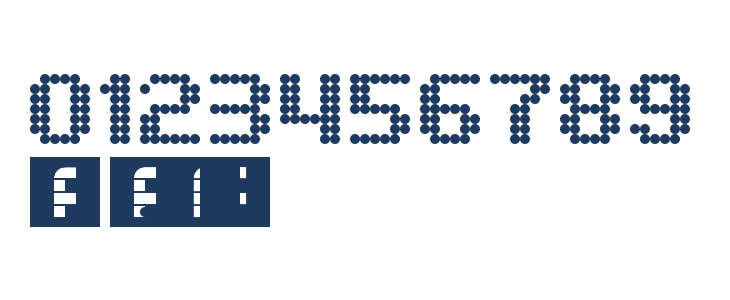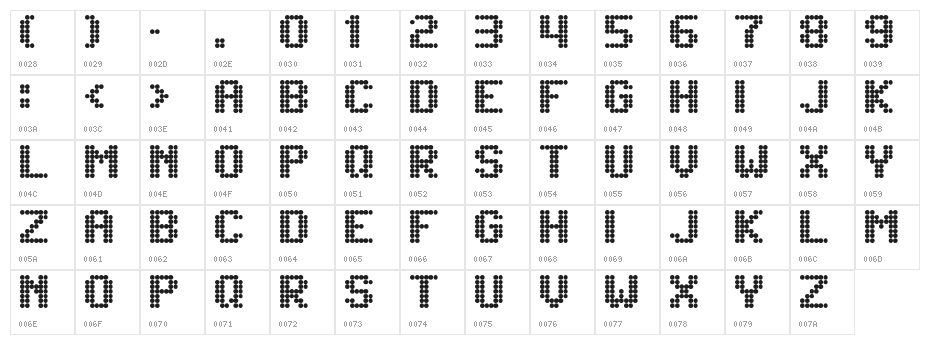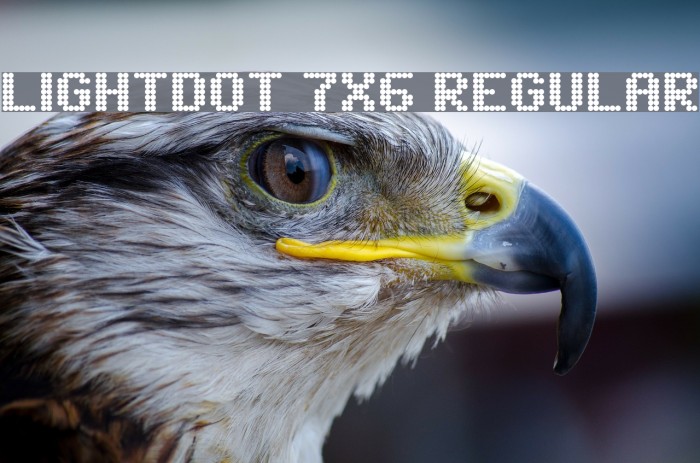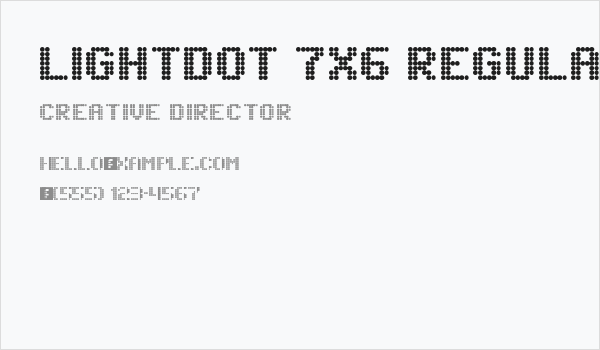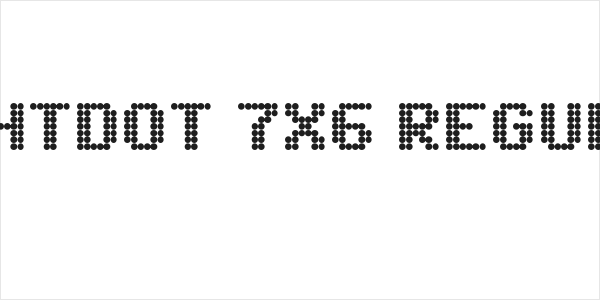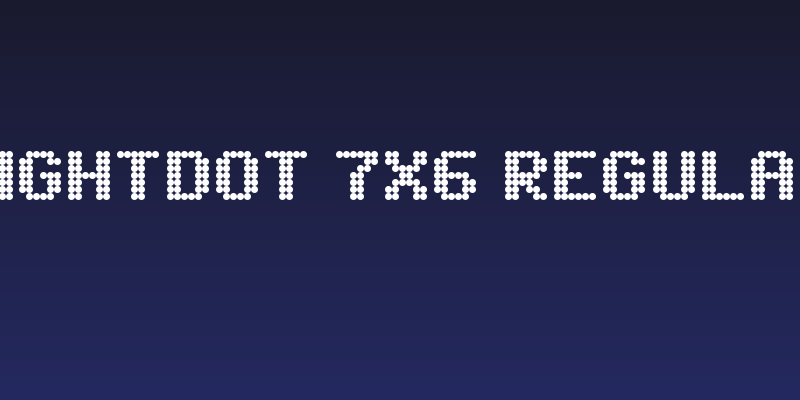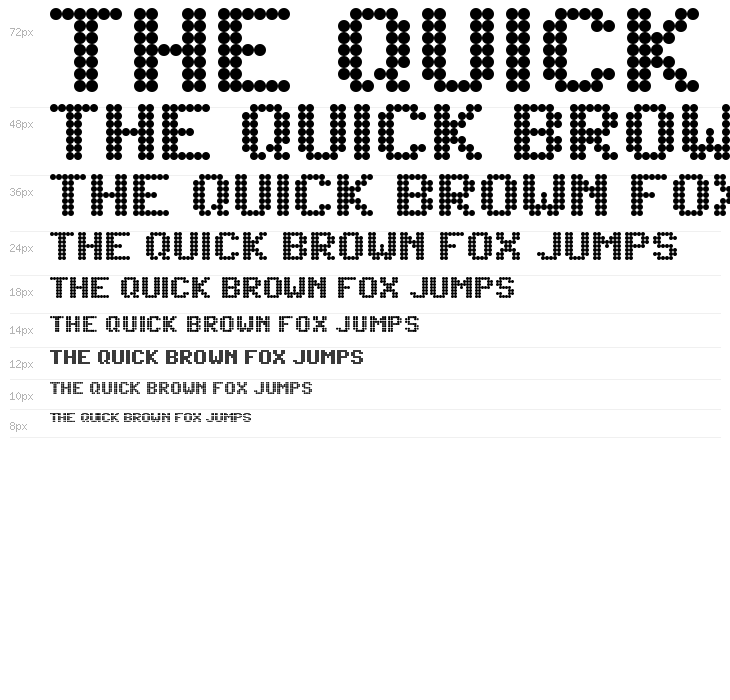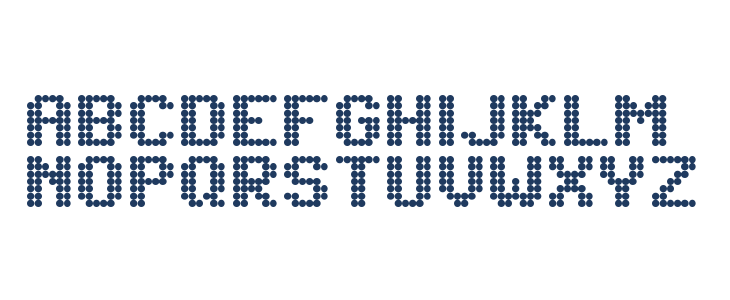
Lightdot 7x6 Regular Font
Lightdot 7x6 Regular Description
This font features a unique dot matrix design, where each character is composed of a grid of small, evenly spaced dots. The style is reminiscent of digital displays or LED screens, giving it a modern and technological feel. The characters are uniformly structured, maintaining a consistent height and width across both uppercase and lowercase letters. Numbers and special characters follow the same dot pattern, ensuring a cohesive look. The font's geometric nature makes it highly legible, even at smaller sizes, while its distinct appearance adds a decorative touch to any project.
| Use Case | Headlines, Logos, Digital displays |
| Proposed Projects | Ideal for digital displays, tech-themed designs, posters, and futuristic branding. |